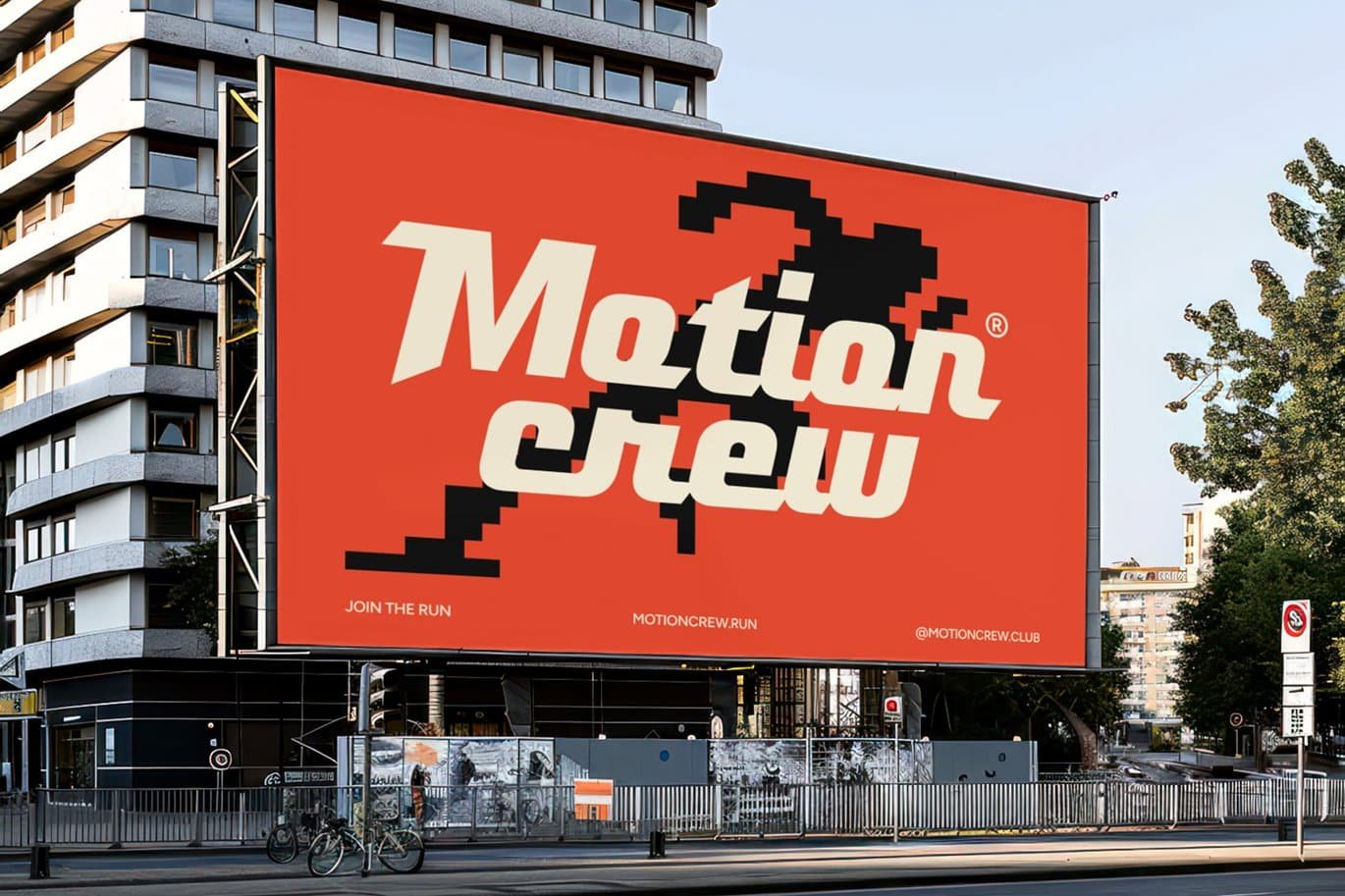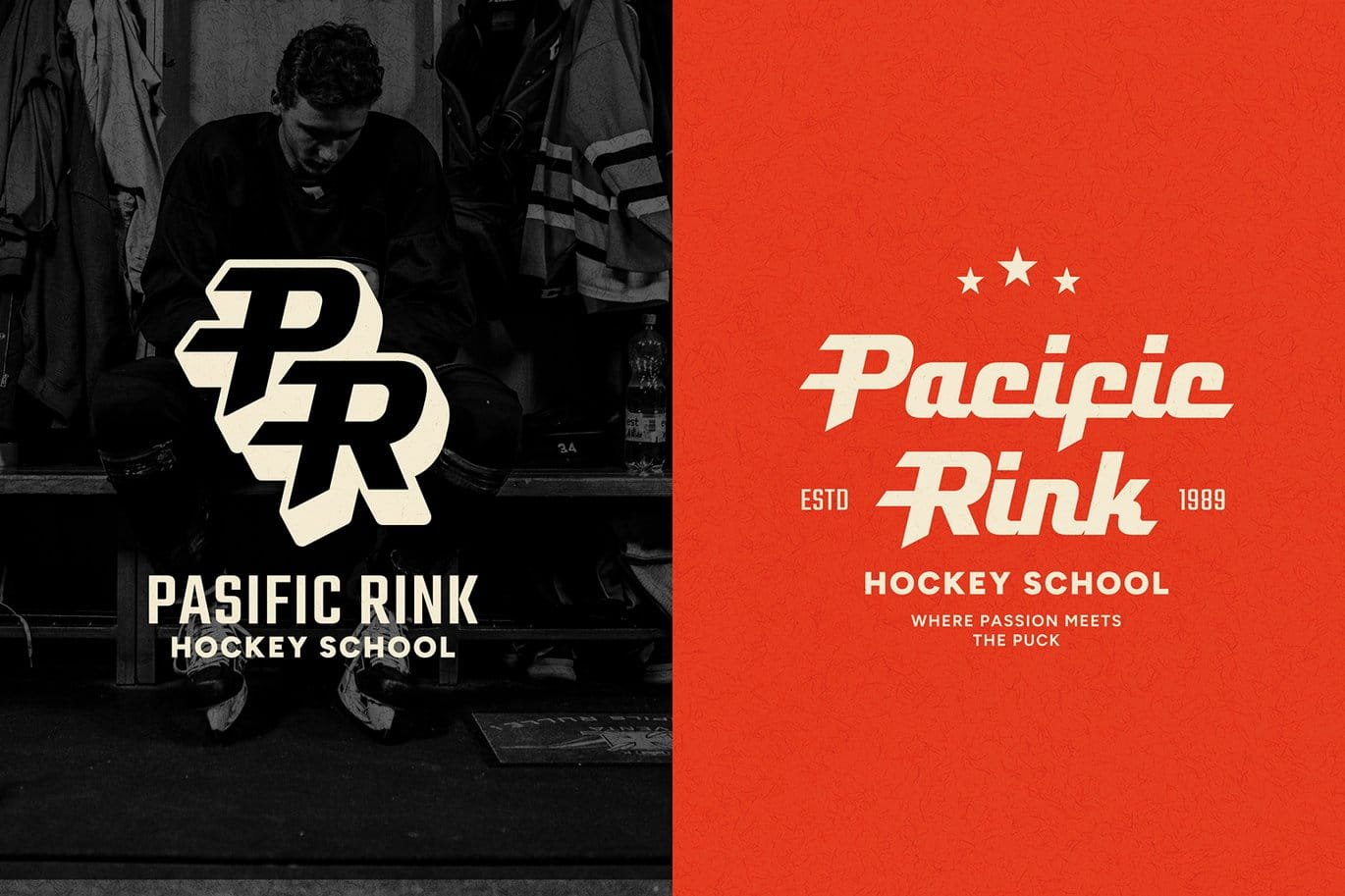
Pedals – Sports Font
PEDALS is a sport-bold display font built for unstoppable movement and high-energy design. With smooth curves, sharp cuts, and a fast-paced silhouette, this typeface captures the spirit of sports, racing, football, basketball, baseball, and soccer. Its athletic form delivers strong visual impact for fitness campaigns, gym branding, golf tournaments, sporty advertisements, and bold sport graphics that demand motion and competitiveness. Every letter is shaped to enhance clarity, speed, and adrenaline-fueled excitement.
From number-based graphics to biker visuals, from hockey promotions to fight event posters, PEDALS brings a confident athletic presence to any project. Its dynamic structure makes it a perfect fit for race identities, sports events, bold headlines, and performance-driven visual branding. Whether you’re working on fast-moving race concepts or building a modern athletic brand, PEDALS ensures your message accelerates forward with energy, strength, and a fearless sporty attitude.
Bold Moves, Strong Letters — where dynamic sport energy meets modern precision to create a fearless competitive identity.